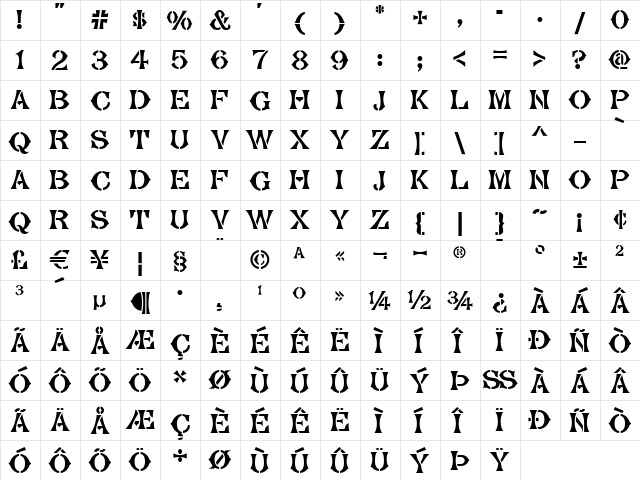
Sulphur Springs WBW Medium
| Foundry | Nick's Fonts |
| Designer | Nick Curtis |
Design Context for Sulphur Springs WBW Typeface
Sulphur Springs WBW takes a measured approach to typography — its balanced proportions and neutral character make it a reliable workhorse for both digital and print work.